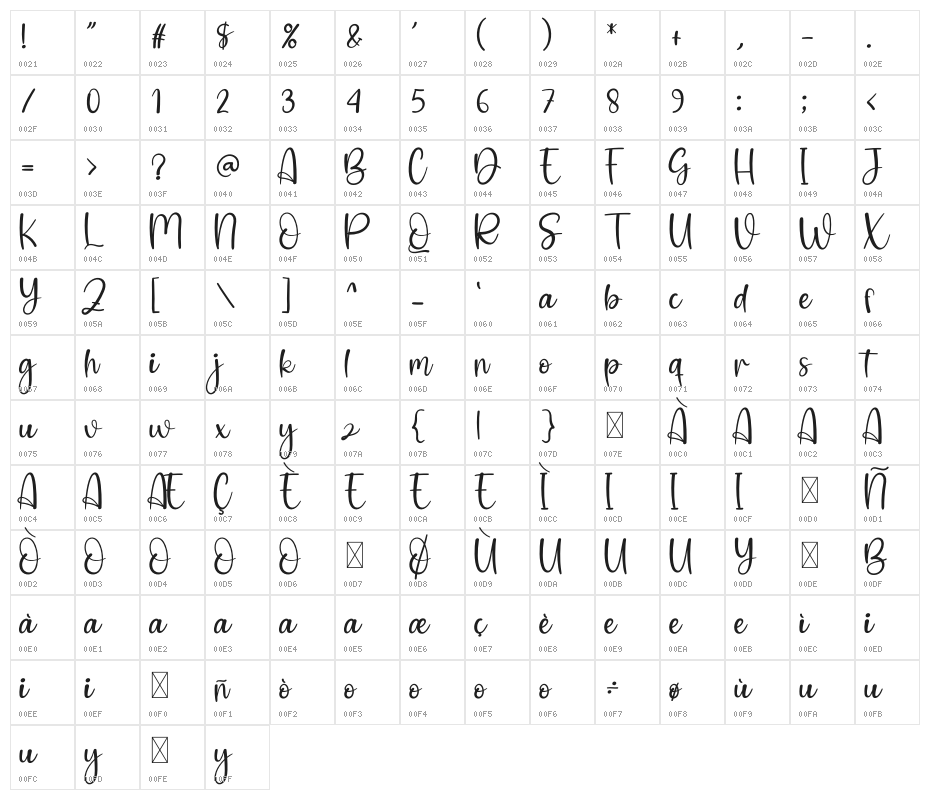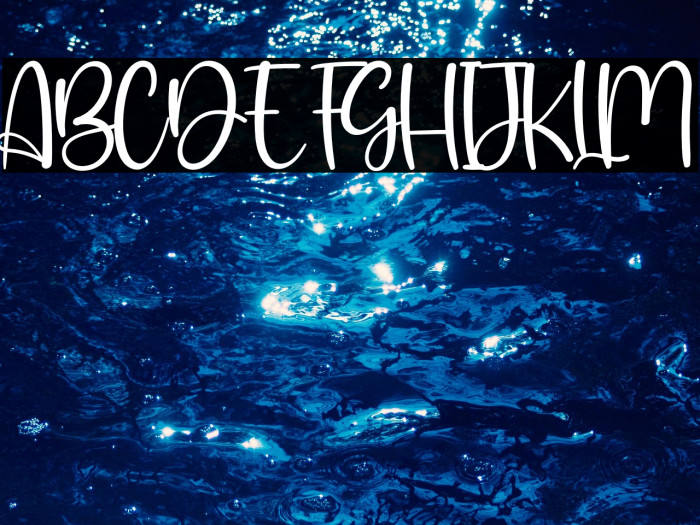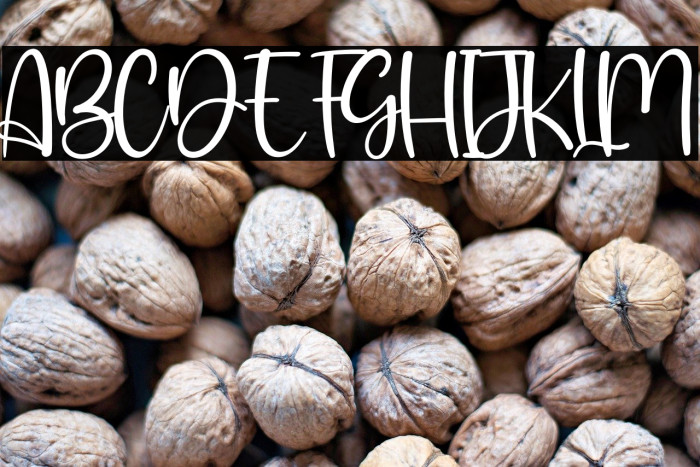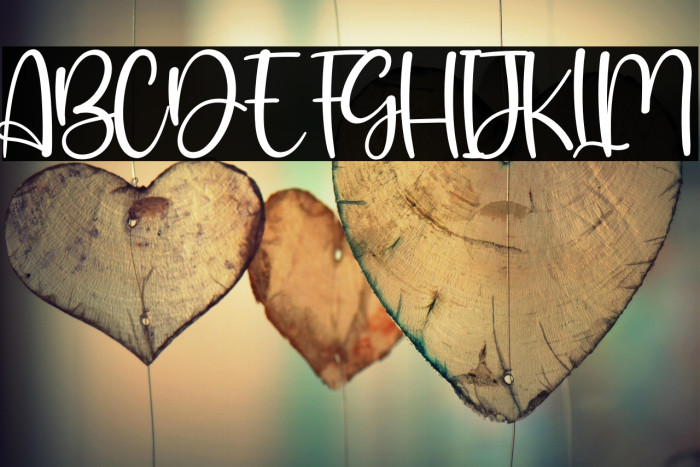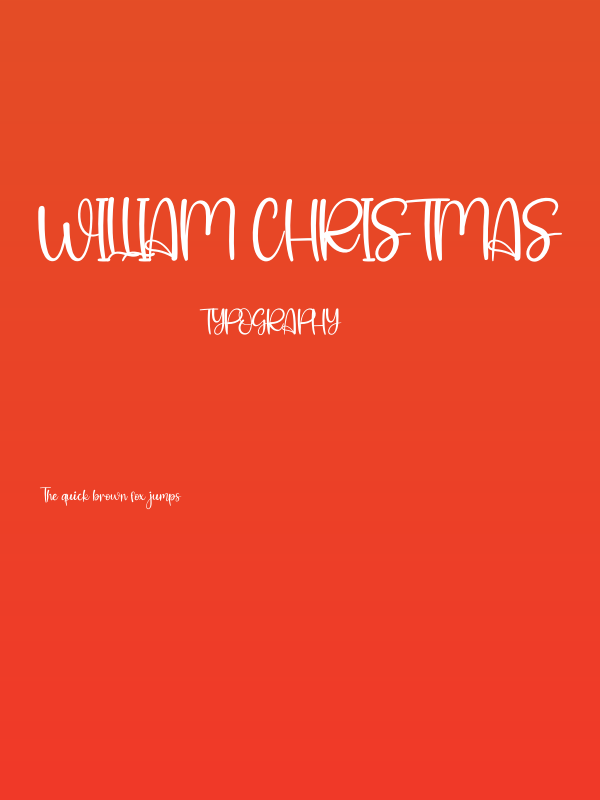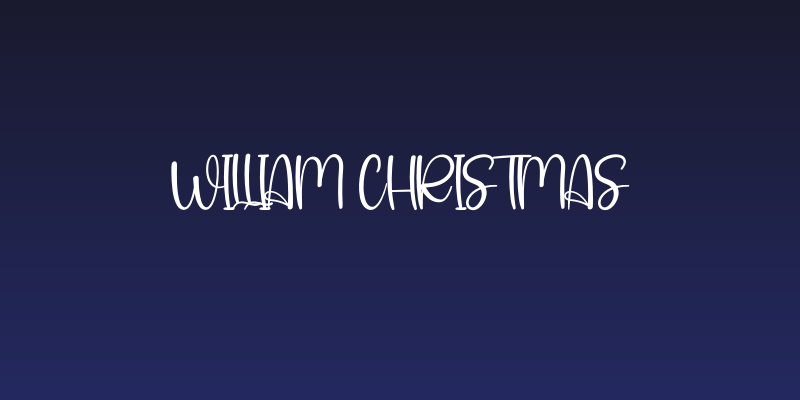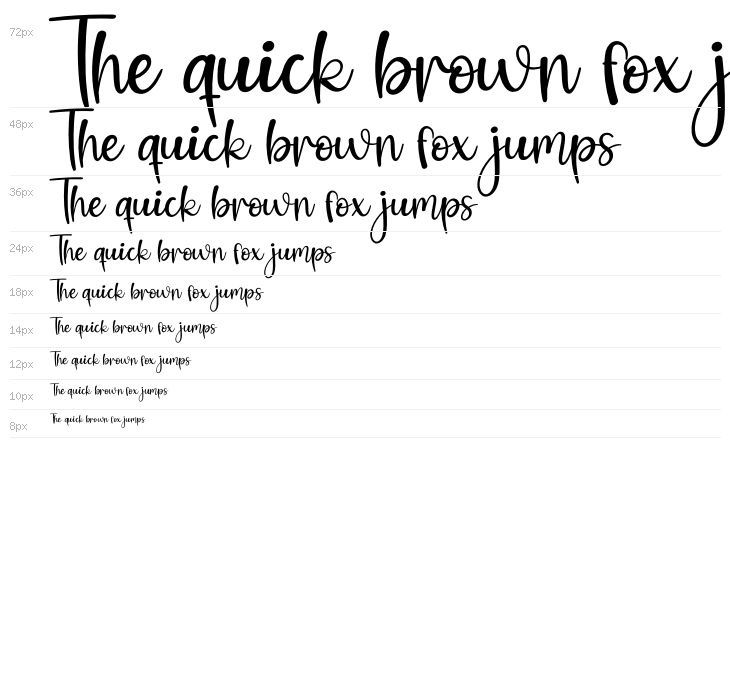
William Christmas Font
William Christmas Description
A playful, handwritten script font with tall, looping ascenders and descenders, featuring smooth, rounded strokes and a casual, informal appearance. The characters are slightly condensed with moderate spacing, and the overall style is lively and expressive.
| Overall Style | Decorative, Playful, Handwritten |
| Use Case | Logos, Headlines, Invitations, Greeting cards |
| Proposed Projects | Greeting cards, invitations, social media graphics, branding for creative businesses, posters. |